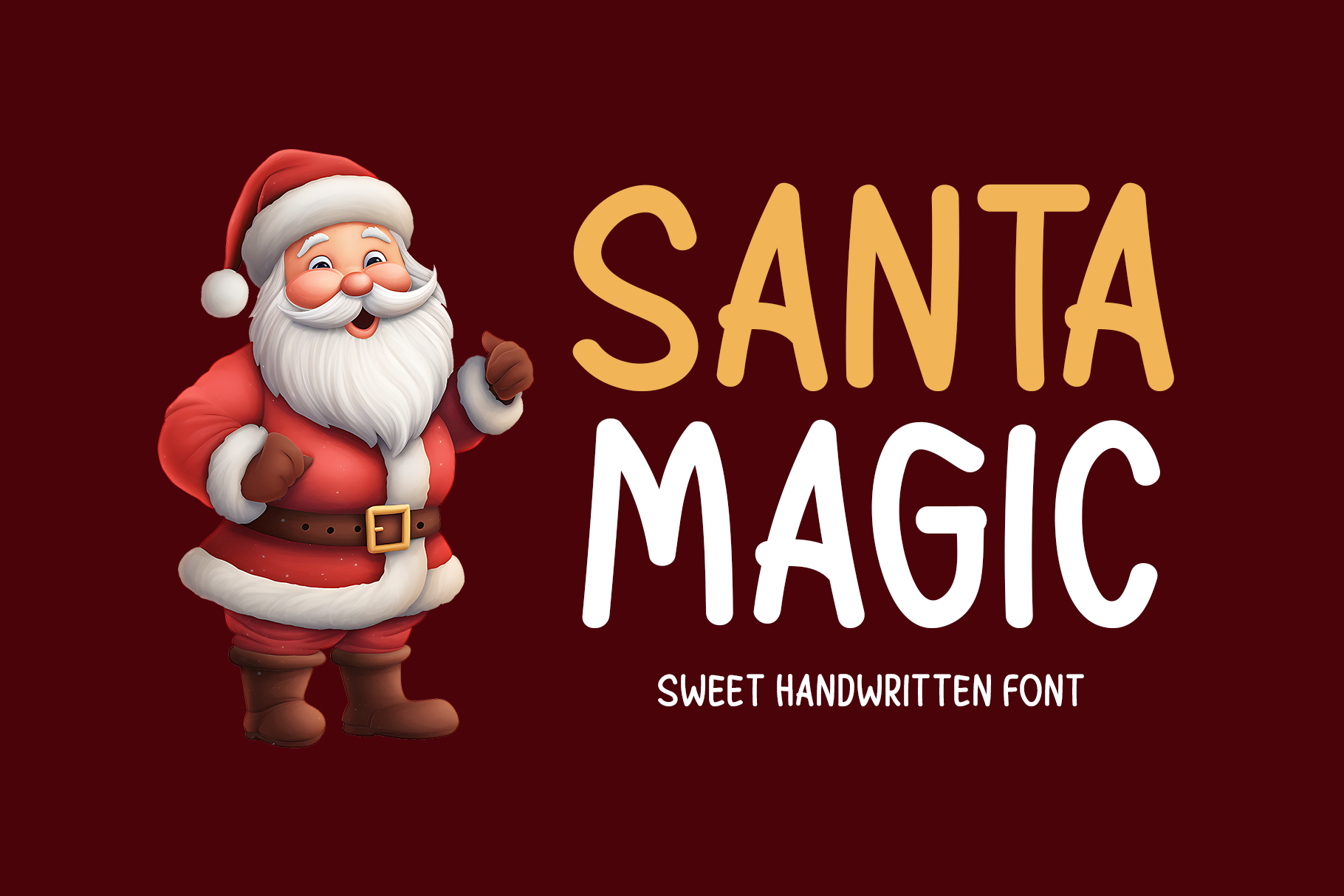
Santa Magic Typeface
Introducing Santa Magic!
Santa Magic is a charming handwritten font that captures the warmth and wonder of the holiday season. Its playful strokes and cozy feel make it ideal for festive projects like greeting cards, logos, apparel, print materials, web headers, music covers, and more. Santa Magic adds delight to any product, whether you're designing for Christmas or just want to add a magical, unique touch.